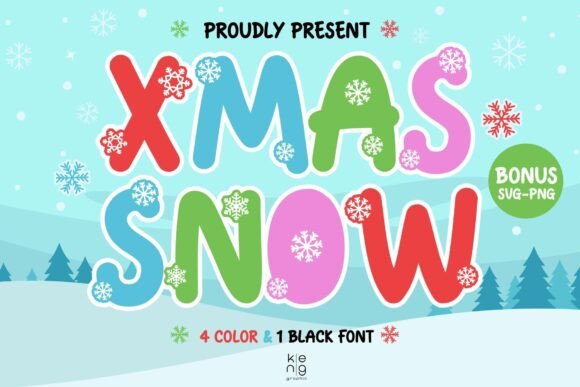
Unleash the Holiday Spirit with the Xmas Snow Font
The holiday season is upon us, and with it comes the desire to spread cheer and joy to those around us. One of the most effective ways to do this is through thoughtful and personalized gifts. Imagine being able to create unique and eye-catching designs that capture the essence of Christmas, with a font that embodies the whimsical charm of snow. Welcome to the world of the Xmas Snow font, a vibrant and festive typography that is sure to elevate your holiday designs.
What is the Xmas Snow Font?
The Xmas Snow font is a specially designed typography that embodies the magic of Christmas snow. With its playful and whimsical design, this font is perfect for creating holiday-themed designs that are sure to capture the attention of your audience. The Xmas Snow font is versatile and can be used on a variety of items, including t-shirts, mugs, bags, and more.
What sets the Xmas Snow font apart is its unique and festive design. Each letter and character is carefully crafted to resemble snowflakes, complete with intricate details and patterns. The font is available in various sizes and can be easily customized to fit your design needs.
Uses of the Xmas Snow Font
The Xmas Snow font is incredibly versatile and can be used in a variety of ways to create unique and personalized holiday designs. Here are a few ideas to get you started:
- Personalized Gifts: Use the Xmas Snow font to create personalized gifts, such as monogrammed towels, customized phone cases, and more.
- Holiday Cards: Create festive holiday cards with the Xmas Snow font, adding a touch of whimsy and charm to your greetings.
- T-Shirts and Apparel: Design eye-catching holiday t-shirts and apparel with the Xmas Snow font, perfect for parties, gatherings, and more.
- Signs and Banners: Use the Xmas Snow font to create festive signs and banners, perfect for decorating your home or business during the holiday season.
Benefits of Using the Xmas Snow Font
The Xmas Snow font offers a range of benefits, making it the perfect choice for your holiday designs. Here are a few advantages of using this festive font:
- Unique and Eye-Catching: The Xmas Snow font is unlike any other font available, making your designs stand out from the crowd.
- Versatile: The Xmas Snow font can be used on a variety of items, from t-shirts to signs and banners.
- Customizable: The Xmas Snow font can be easily customized to fit your design needs, including size, color, and more.
Tips for Using the Xmas Snow Font
To get the most out of the Xmas Snow font, here are a few tips to keep in mind:
- Pair with Other Fonts: Pair the Xmas Snow font with other complementary fonts to create visually appealing designs.
- Experiment with Colors: Experiment with different colors and textures to add depth and interest to your designs.
- Keep it Simple: Keep your designs simple and clean, allowing the Xmas Snow font to be the focal point.
- Have Fun: Most importantly, have fun and be creative with the Xmas Snow font!
The Xmas Snow font is a unique and festive typography that is sure to elevate your holiday designs. With its whimsical charm and versatility, this font is perfect for creating personalized gifts, holiday cards, and more. Whether you’re a designer, business owner, or simply someone who loves the holiday season, the Xmas Snow font is a must-have for your design toolkit.
So why wait? Unleash the holiday spirit with the Xmas Snow font and create designs that are sure to capture the essence of Christmas. Let every stroke transport you to a winter wonderland, elevating your designs with a touch of Christmas magic.